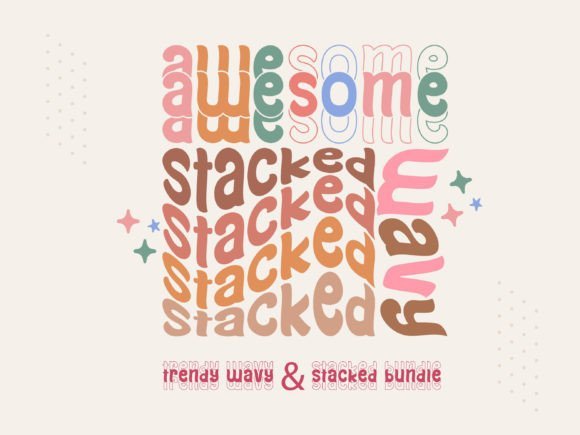
Introduction to Awesome Wavy Stacked Font
Awesome Wavy Stacked is a cute and charming display font.
Whimsical and a bit quirky, this font will brighten up each of your designs Add it confidently to your projects, and you will love the results.
Key Features of Awesome Wavy Stacked Font
Why Choose Awesome Wavy Stacked Font?